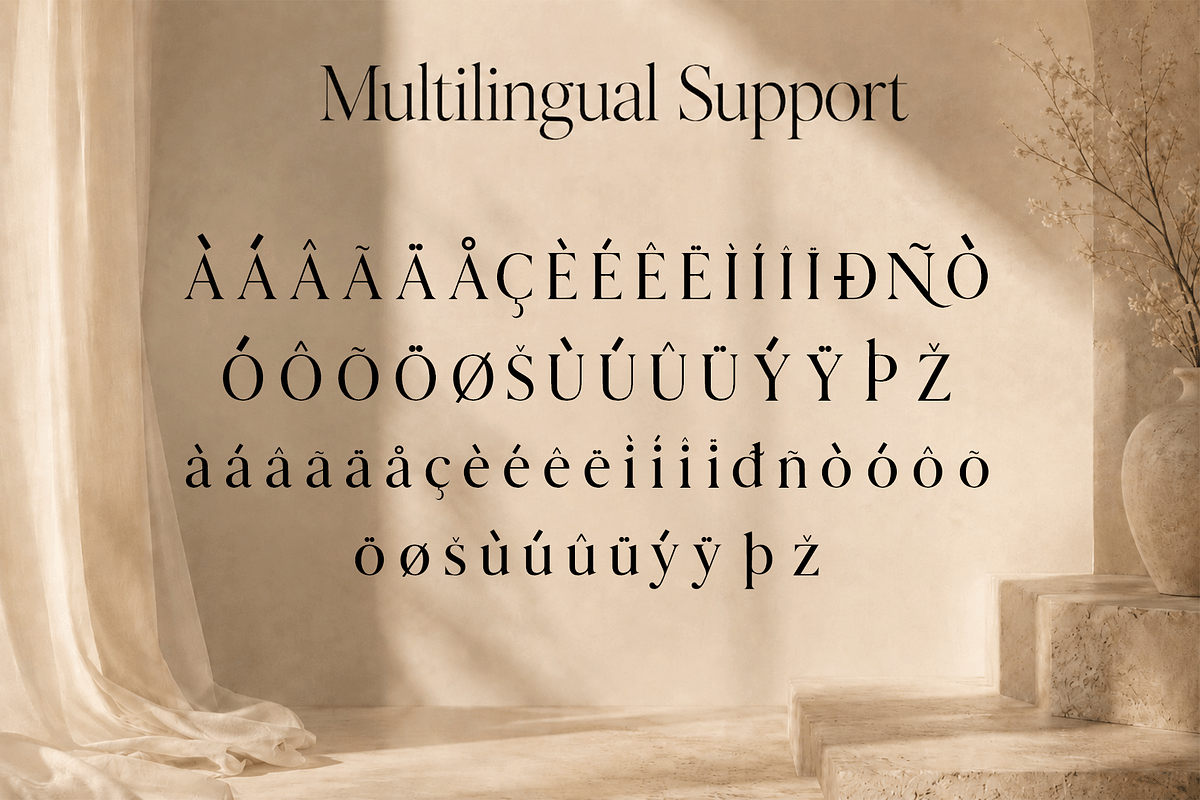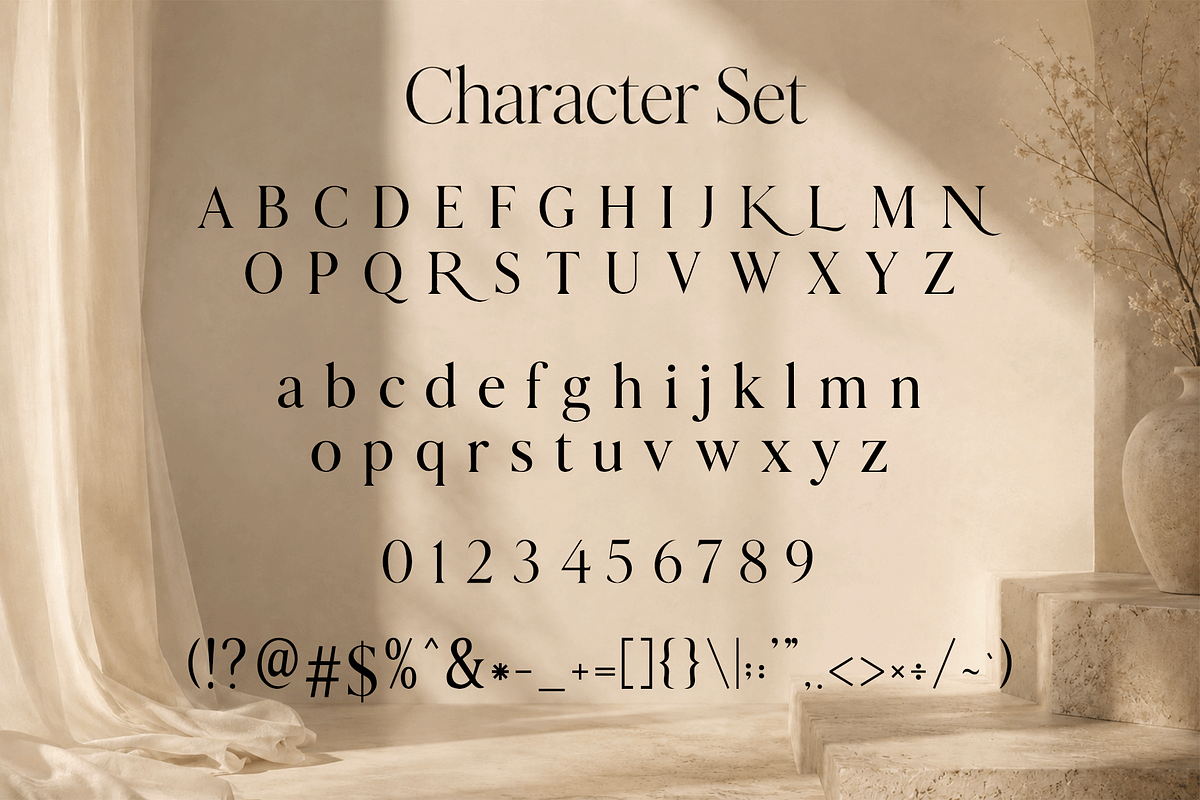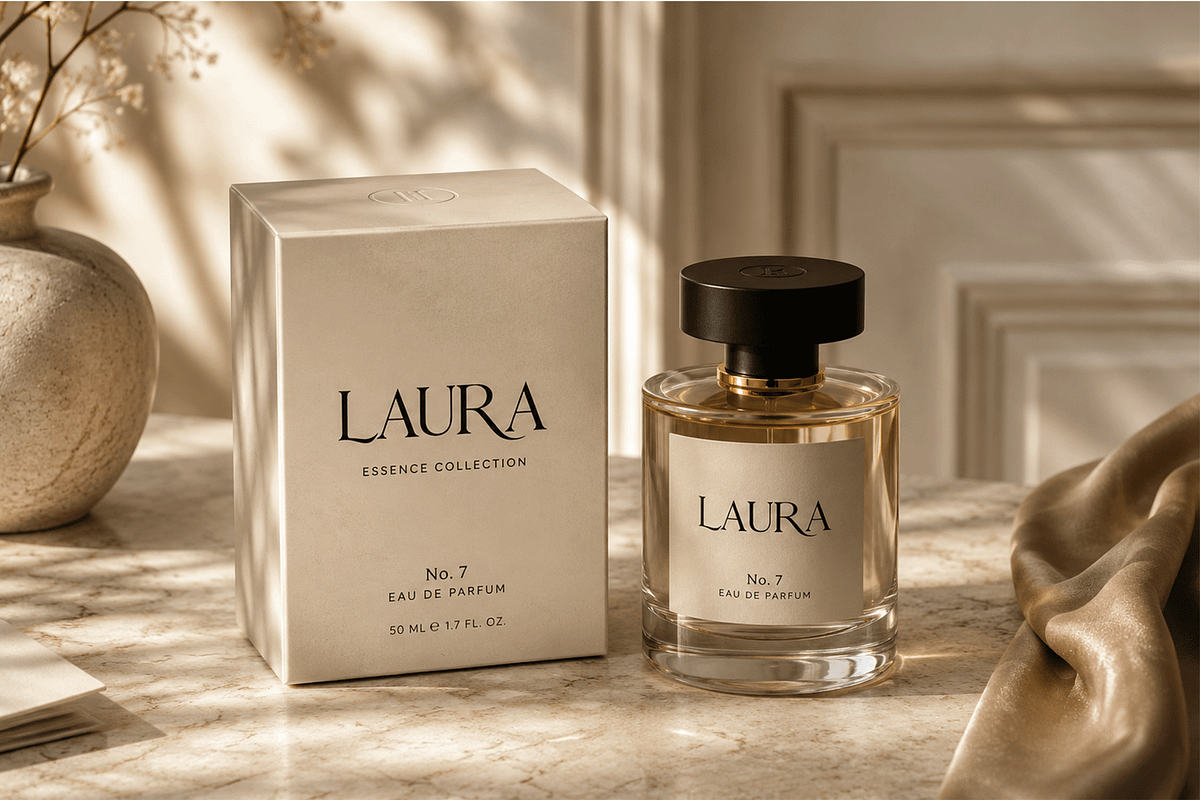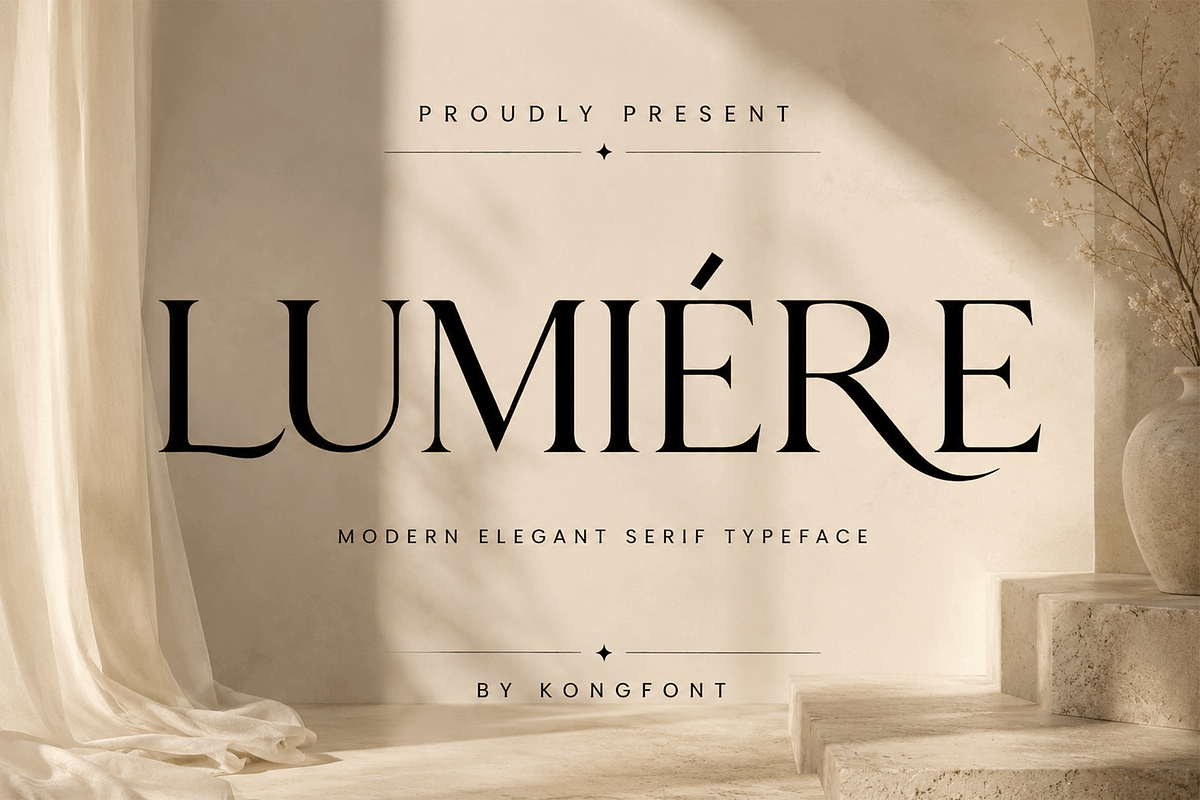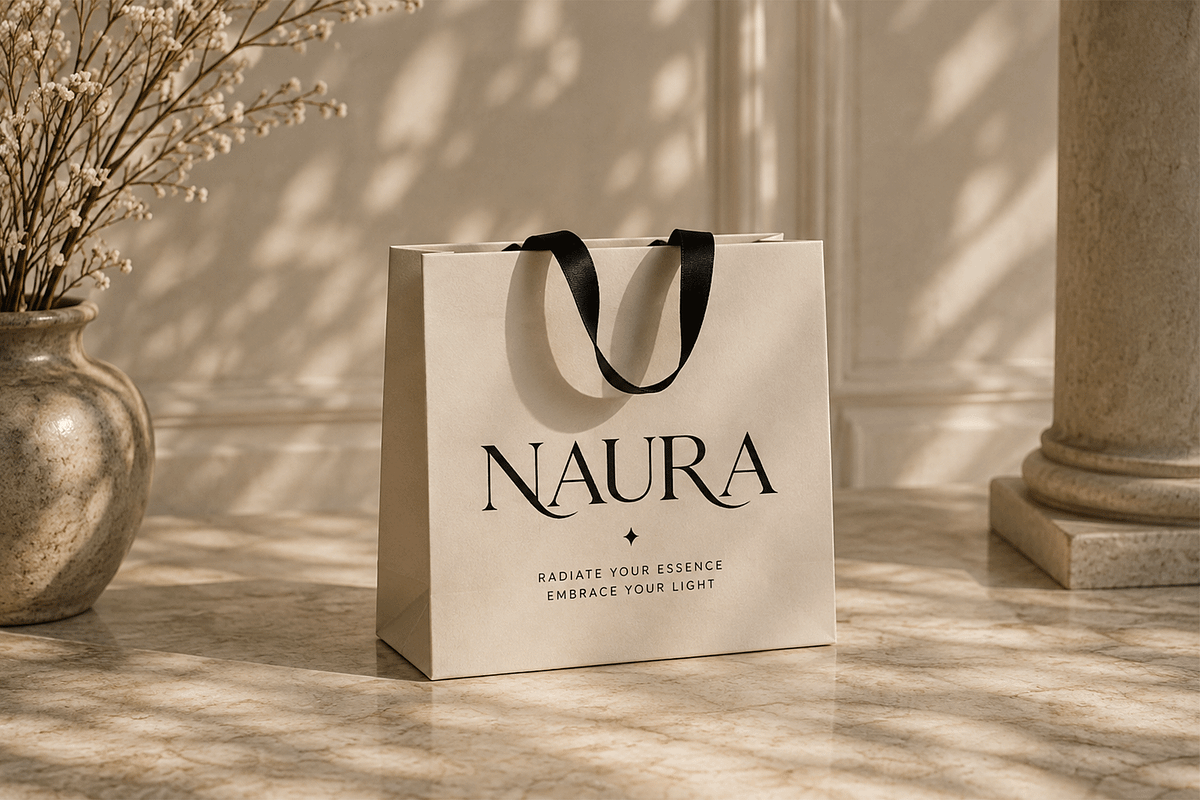
Lumière - Modern Elegant Serif
Lumière - Modern Elegant Serif Typeface
Meet "Lumière," a modern elegant serif typeface crafted with graceful proportions, refined curves, and sophisticated high contrast details. Its polished letterforms create a luxurious visual presence that feels timeless, editorial, and effortlessly contemporary.
Lumière works beautifully for luxury boutiques, cosmetics, jewelry, hospitality branding, photography, premium packaging, lifestyle products, and elegant social media content. Pair it with a minimalist sans serif for a modern contrast, or let Lumière stand alone as a refined statement typeface.